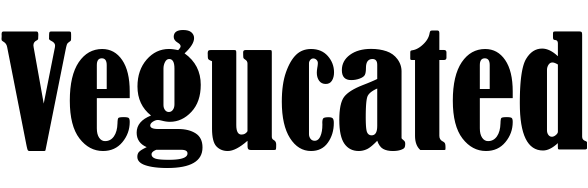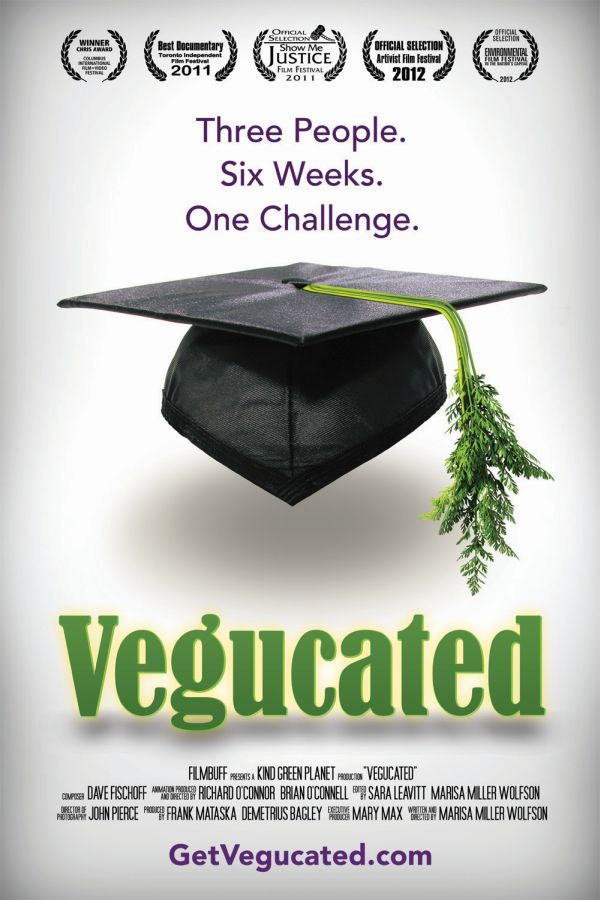
Vegucated Font
DocumentaryVegucated is a documentary film that follows three meat-loving New Yorkers as they adopt a vegan diet and explore the ethical, environmental, and health implications of their food choices.
It appears that the movie title on the poster utilizes Bernard Condensed, a typeface based on the art nouveau style, created by Monotype in 1926. For more information about the font please click here.